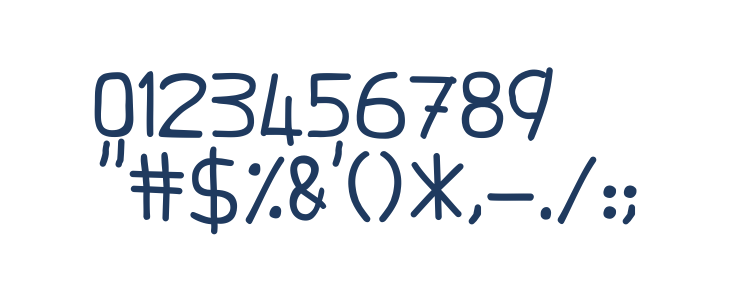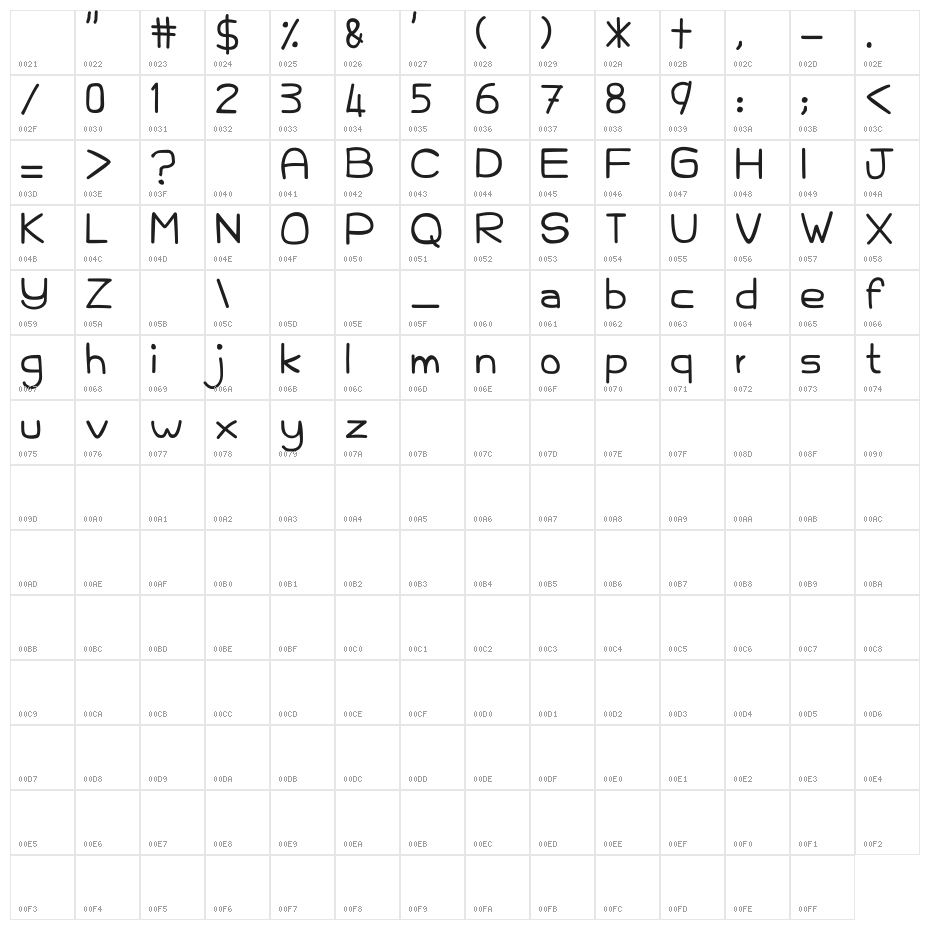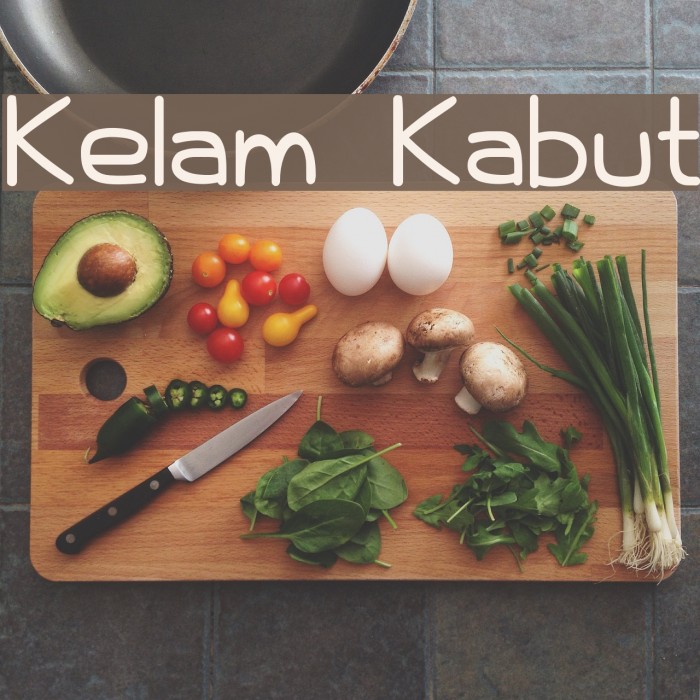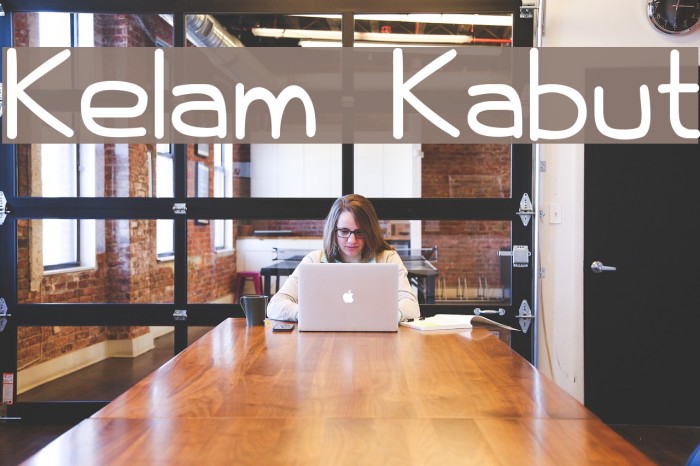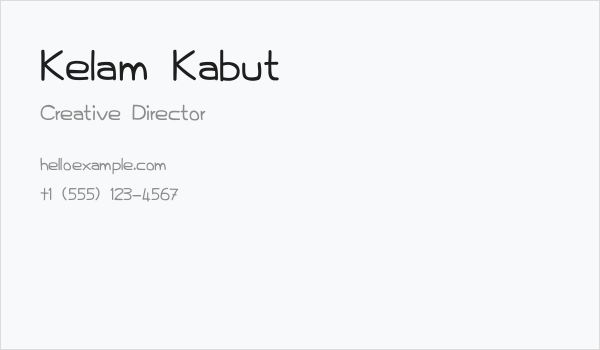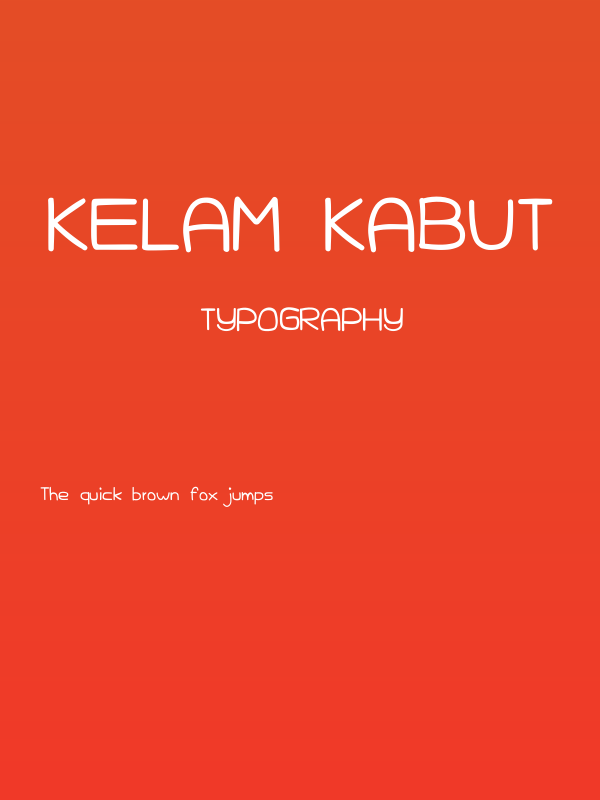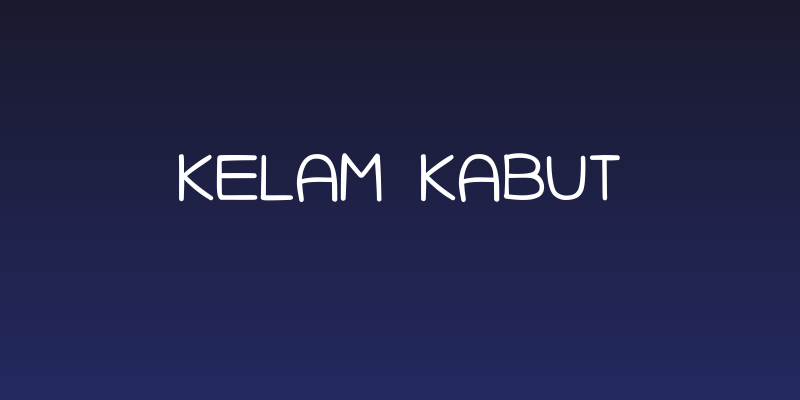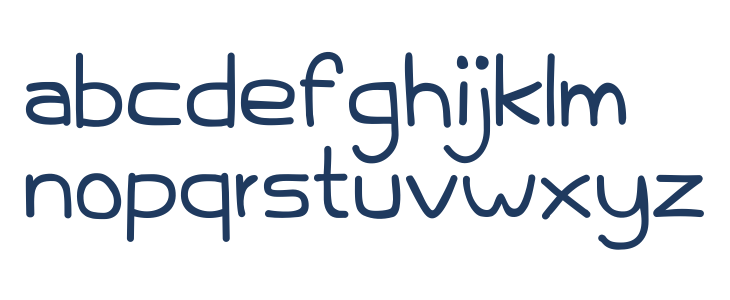
Kelam Kabut Font
Kelam Kabut Description
This font features a clean and modern design with rounded edges, giving it a friendly and approachable appearance. The characters are evenly spaced and maintain a consistent stroke width, which contributes to its legibility. The uppercase letters are slightly taller than the lowercase, providing a balanced visual hierarchy. The numerals are clear and distinct, matching the style of the alphabet. Special characters are included, maintaining the same rounded and smooth aesthetic. This font is versatile, suitable for both digital and print media.
| Proposed Projects | Ideal for branding, web design, children's books, and educational materials due to its friendly and approachable style. |